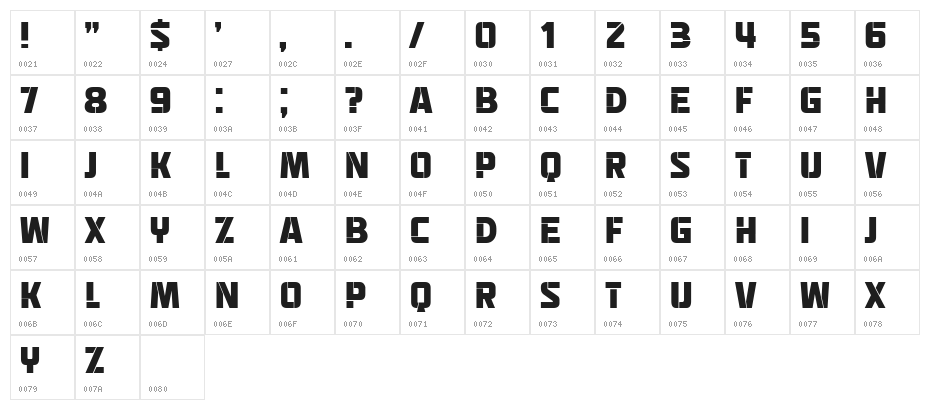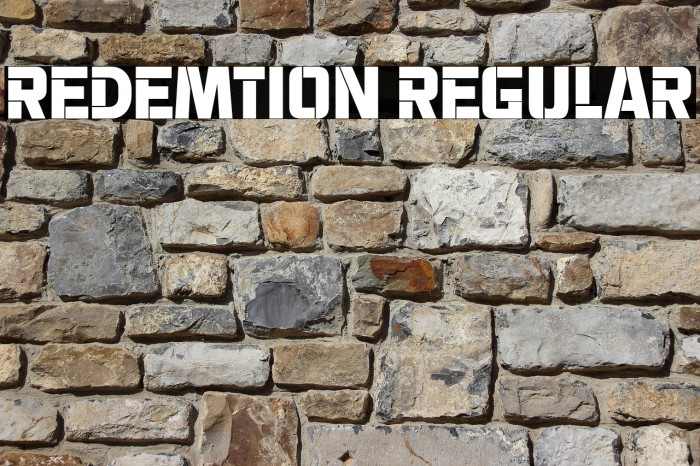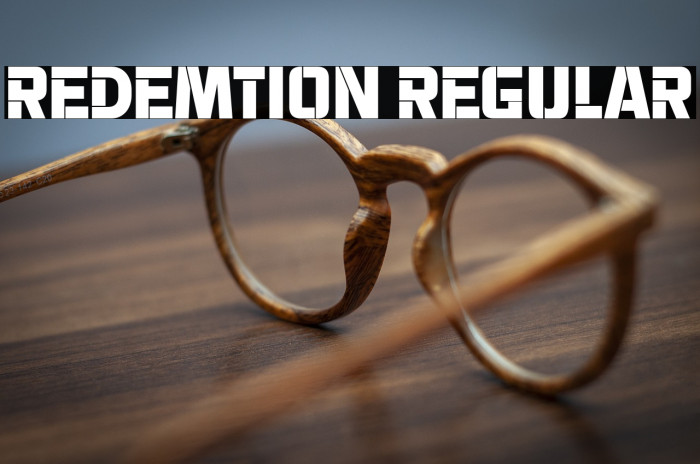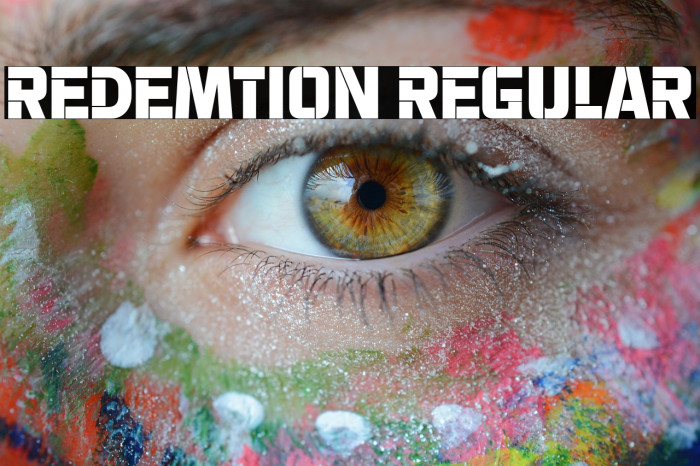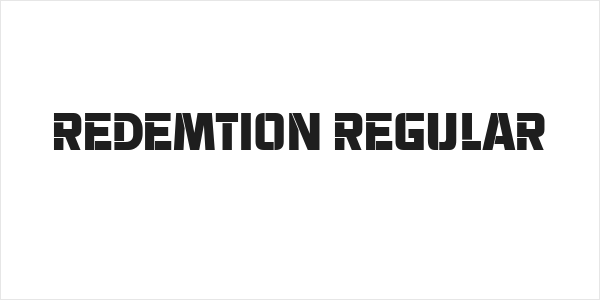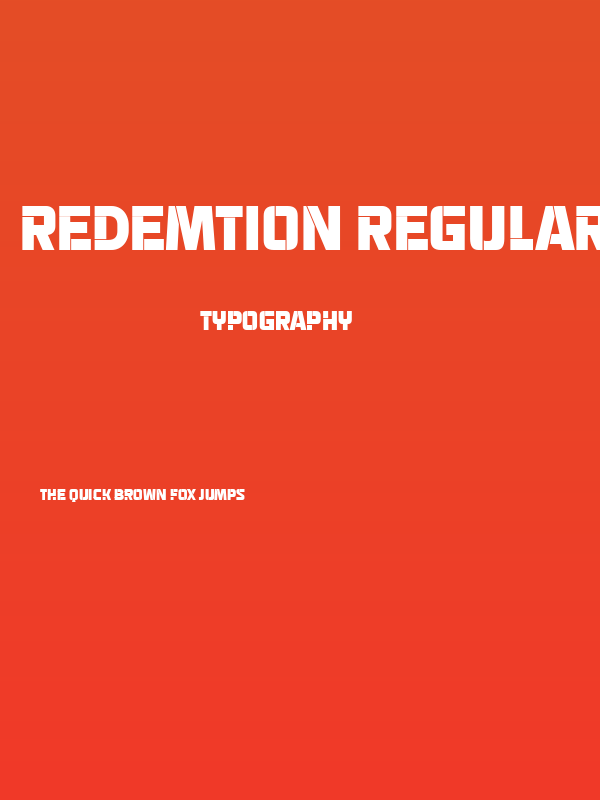
Redemtion Regular Font
Redemtion Regular Description
This font features a bold and geometric design, characterized by its blocky and angular letterforms. The uppercase letters are particularly striking, with sharp edges and a modern aesthetic that conveys strength and impact. The numbers and special characters maintain this cohesive style, ensuring versatility across various applications. The font's unique structure makes it ideal for attention-grabbing headlines and logos, where a strong visual presence is required. Its bold weight and high contrast between strokes enhance readability while maintaining a distinct and memorable appearance.
| Proposed Projects | Ideal for branding, posters, headlines, and logo design where a strong, modern look is desired. |